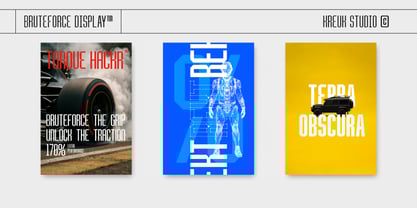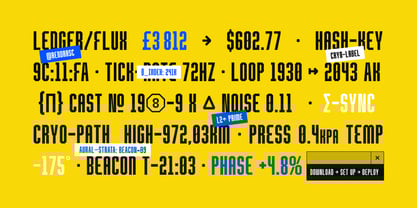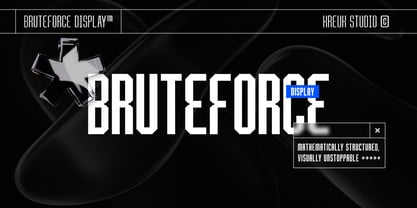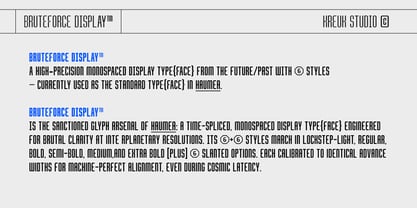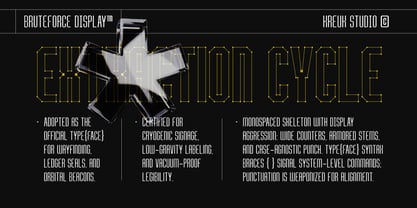
Bruteforce
by Kreuk Type Foundry
The Bruteforce Font Family was designed by Rendra Diardjo and published by Kreuk Type Foundry. Bruteforce contains 12 styles and family package options. More about this family
Bruteforce Display™ is a contemporary geometric display typeface that merges precision engineering with bold visual energy. Designed for creatives who value control, clarity, and confidence, each letterform showcases angular geometry, rhythmic balance, and structural strength, ensuring it stands out in any context. Ideal for posters, logos, digital interfaces, or futuristic branding, Bruteforce Display™ radiates mechanical accuracy and architectural authority. Its clean geometry and distinctive edges make it perfect for projects demanding technical precision and expressive impact. With six meticulously crafted weights—from Light to Extra Bold—along with matching Italics, Bruteforce Display™ offers a comprehensive typographic toolkit for designers in both print and digital media. Each style is optimized for consistent spacing, optical balance, and high-contrast legibility at display sizes. Key Features • Six weights with matching Italics (12 styles total) • Geometric structure with sharp, octagonal detailing • Full Latin character set and complete punctuation support • Refined kerning and spacing for display optimization • Designed for impactful use in titles, branding, sports, gaming, and technology visuals. Ideal Applications • Strong branding and logo systems • Futuristic and tech-oriented designs • Posters, album covers, and editorial layouts • UI headlines, digital campaigns, and motion graphics Bruteforce Display™ — precision-built typography for bold, straight-forward modern expression.